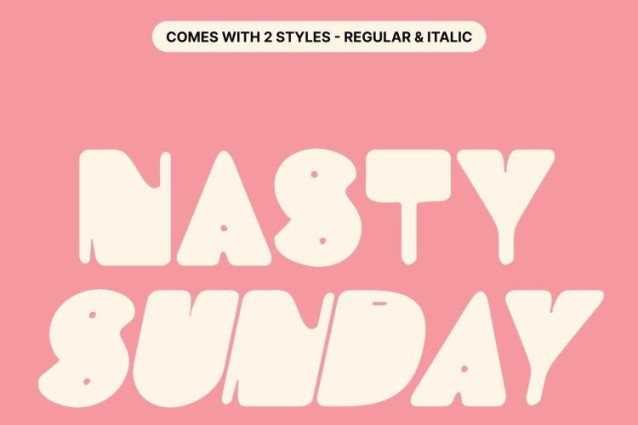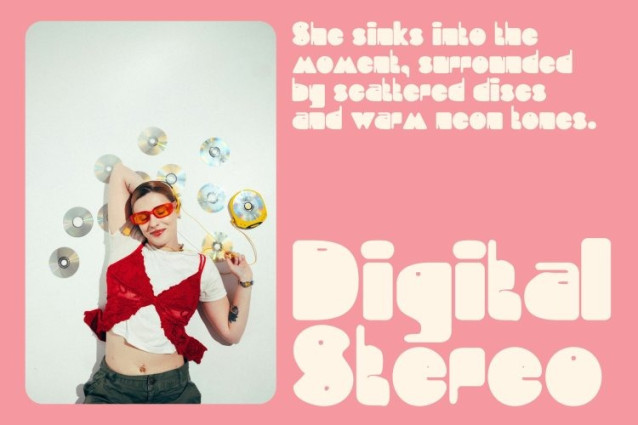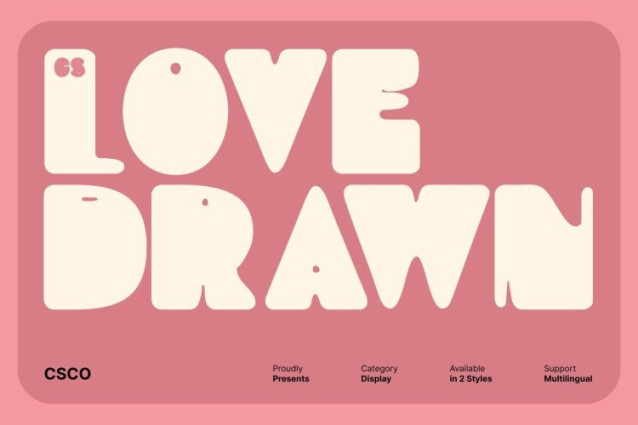
CS Love Drawn Font
CS Love Drawn Font This is a bold and chunky display font designed to make every word feel strong, expressive, and full of personality. Its thick, blocky letterforms create an eye-catching and modern aesthetic, giving your designs a confident presence right from the start.
Playful Hand-Drawn Texture for Unique, Lively Visuals
What sets this font apart is its charming hand-drawn texture. Subtle drawn details soften its heavy structure, adding a playful and friendly touch that enhances its visual appeal. The handcrafted feel brings life and movement to every letter, making it perfect for designs that need a mix of bold form and expressive personality.
Perfect for Headlines, Cute Designs
With its thick strokes and powerful silhouette, this font excels in eye-catching applications. Use it for fun posters, adorable product packaging, youth-focused branding, social media graphics, greeting cards, or standout headlines. Its bold design ensures maximum visibility, while its hand-drawn charm keeps the tone friendly, fun, and visually engaging.
A Versatile Typeface That Balances Bold Impact and Playful Flair
This font is designed for creators who want a typeface that stands out while still feeling inviting. Its chunky shapes deliver strong visual impact. From cute concepts to bold statements, this font brings a delightful combination of confidence and charm to every project.